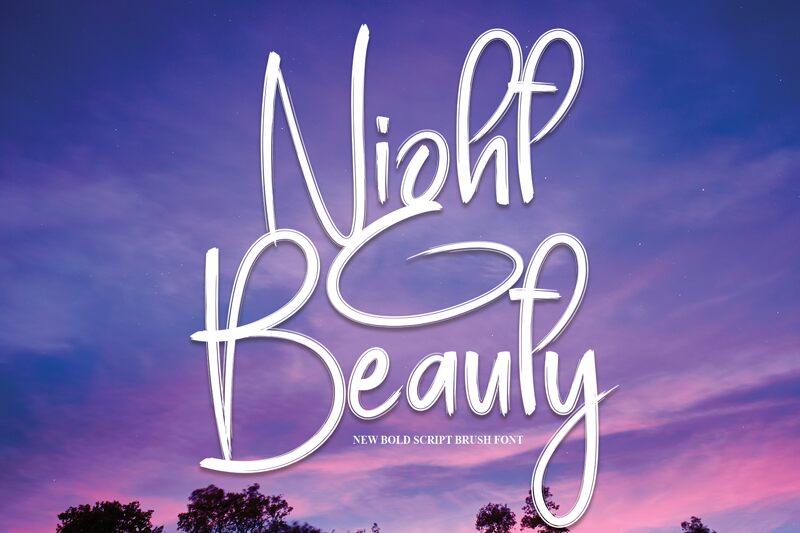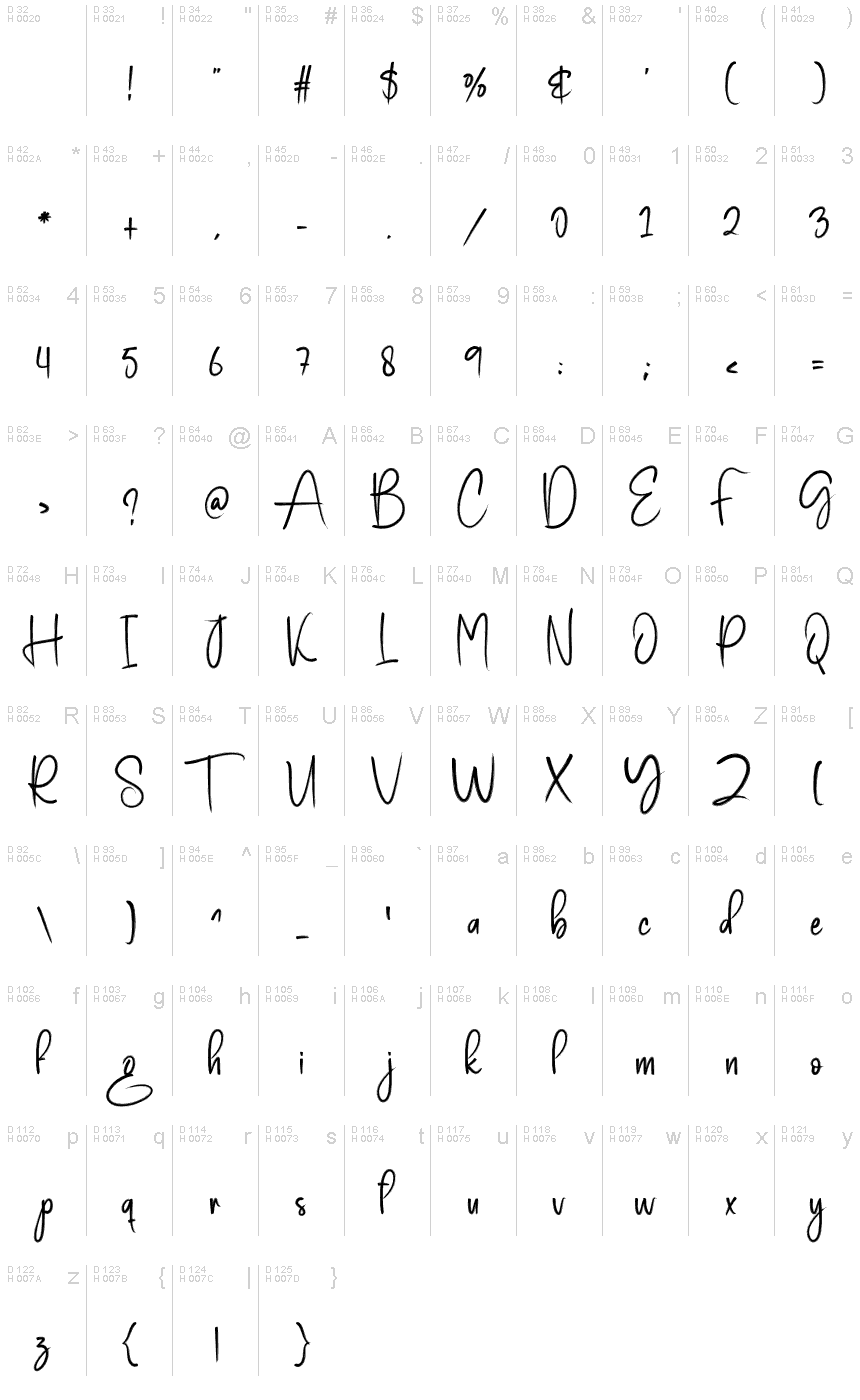
Night Beauty
Night Beauty, a creation by Scratchones, is a font that captures the essence of elegance with a personal touch. Its handwritten style exudes warmth and subtlety, making it an excellent choice for designs that require a hint of intimacy and sophistication. The semi-light weight of Night Beauty strikes the perfect balance between delicacy and readability, ensuring that your words are both inviting and clear.
The semi-condensed width of this typeface offers an artistic economy of space without sacrificing its flowing grace. It's this combination that gives Night Beauty its distinct aesthetic appeal—a blend of casual charm and structured precision. Whether it graces wedding invitations, boutique branding or book covers, Night Beauty brings versatility to various creative projects with its stylish allure.
With each curve and stroke reflecting careful craftsmanship, Night Beauty stands out as more than just a font—it's an embodiment of artistic expression waiting to elevate your next project.